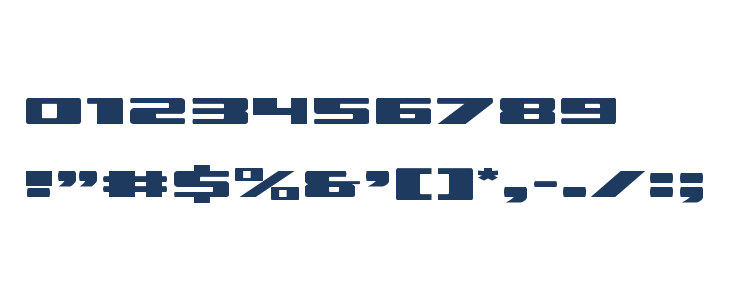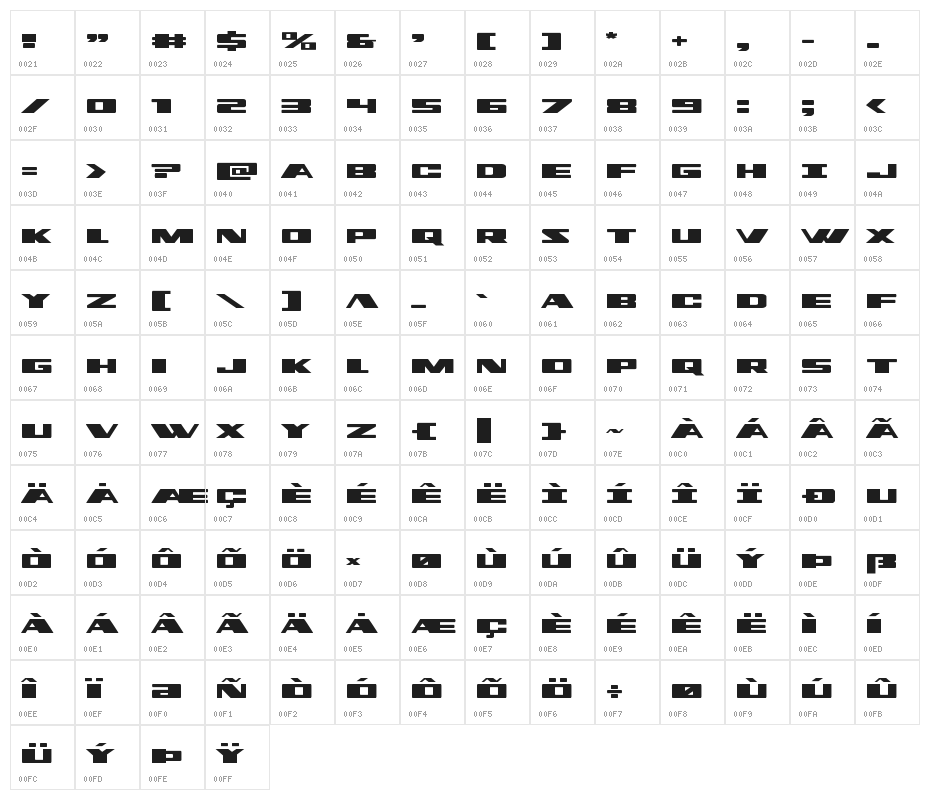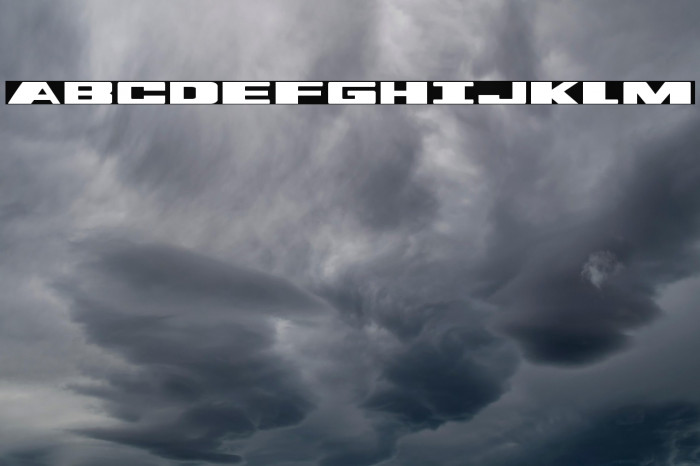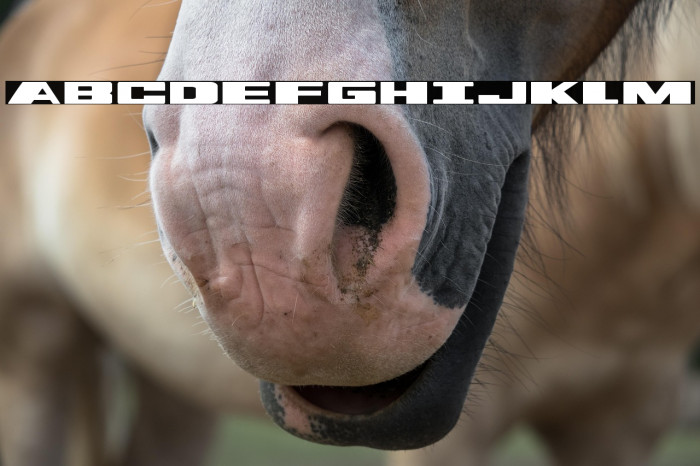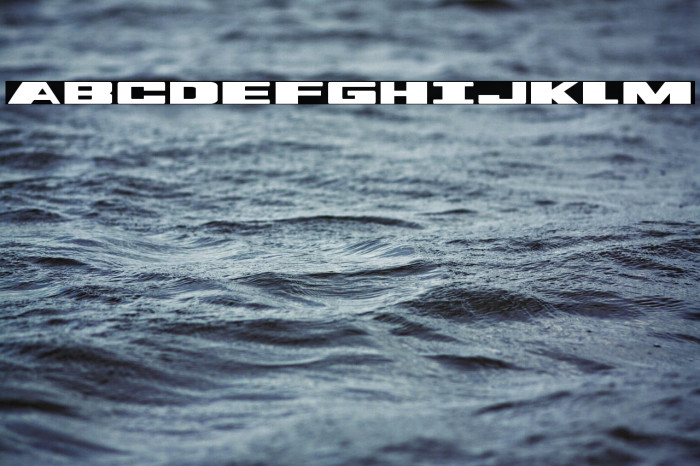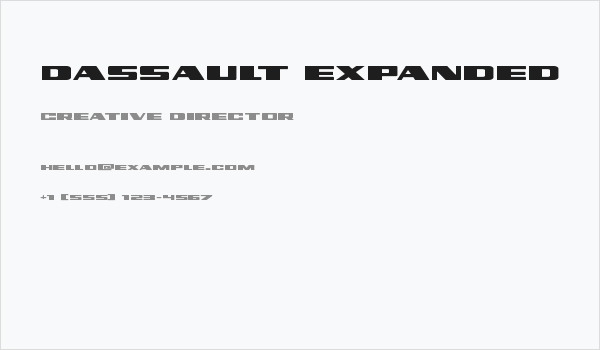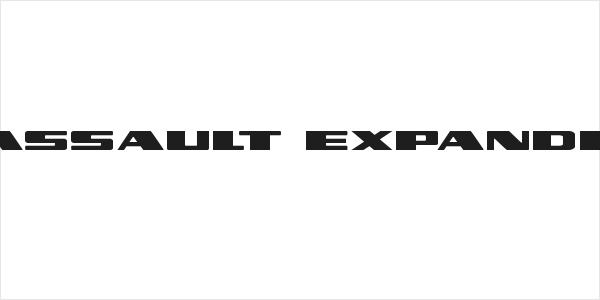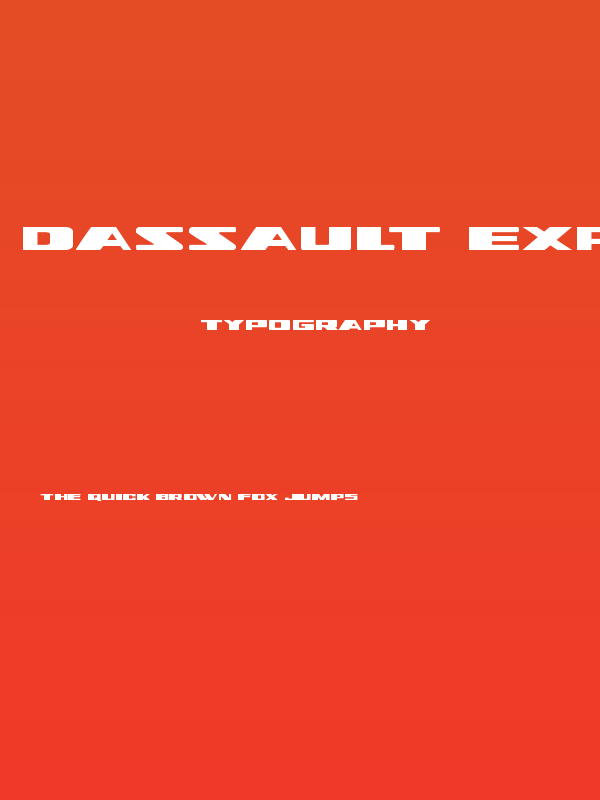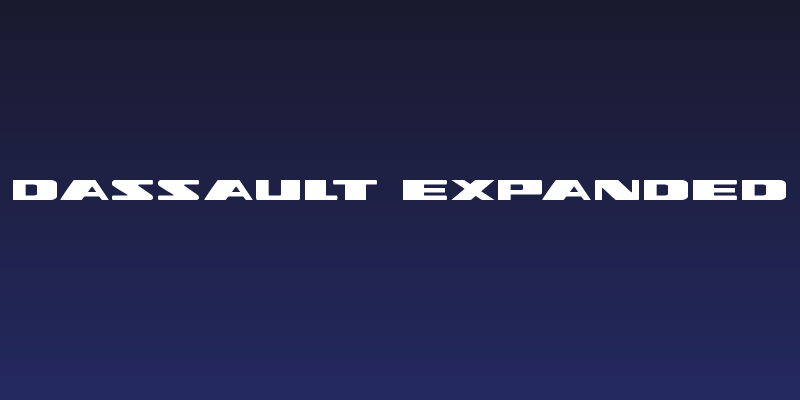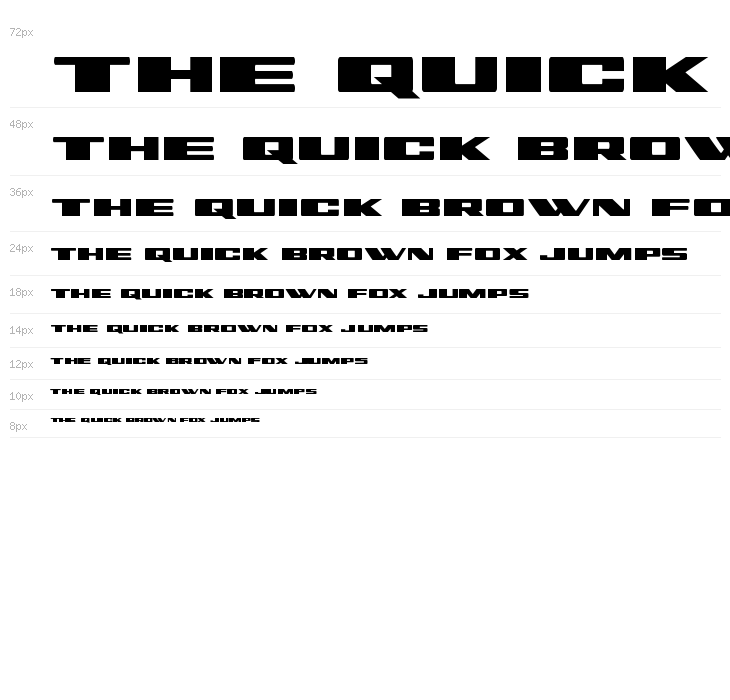
Dassault Expanded Font
Dassault Expanded Description
This font features a bold, geometric design with strong, angular lines and a futuristic aesthetic. The characters are wide and expansive, giving a sense of power and stability. The uppercase letters are particularly striking, with sharp edges and a consistent height that creates a uniform appearance. The numerals follow the same bold style, ensuring readability and impact. Special characters are designed to match the overall aesthetic, maintaining the bold and angular theme. This font is ideal for projects that require a modern, assertive look.
| Proposed Projects | Ideal for branding, posters, video game titles, and any project requiring a modern, impactful typeface. |